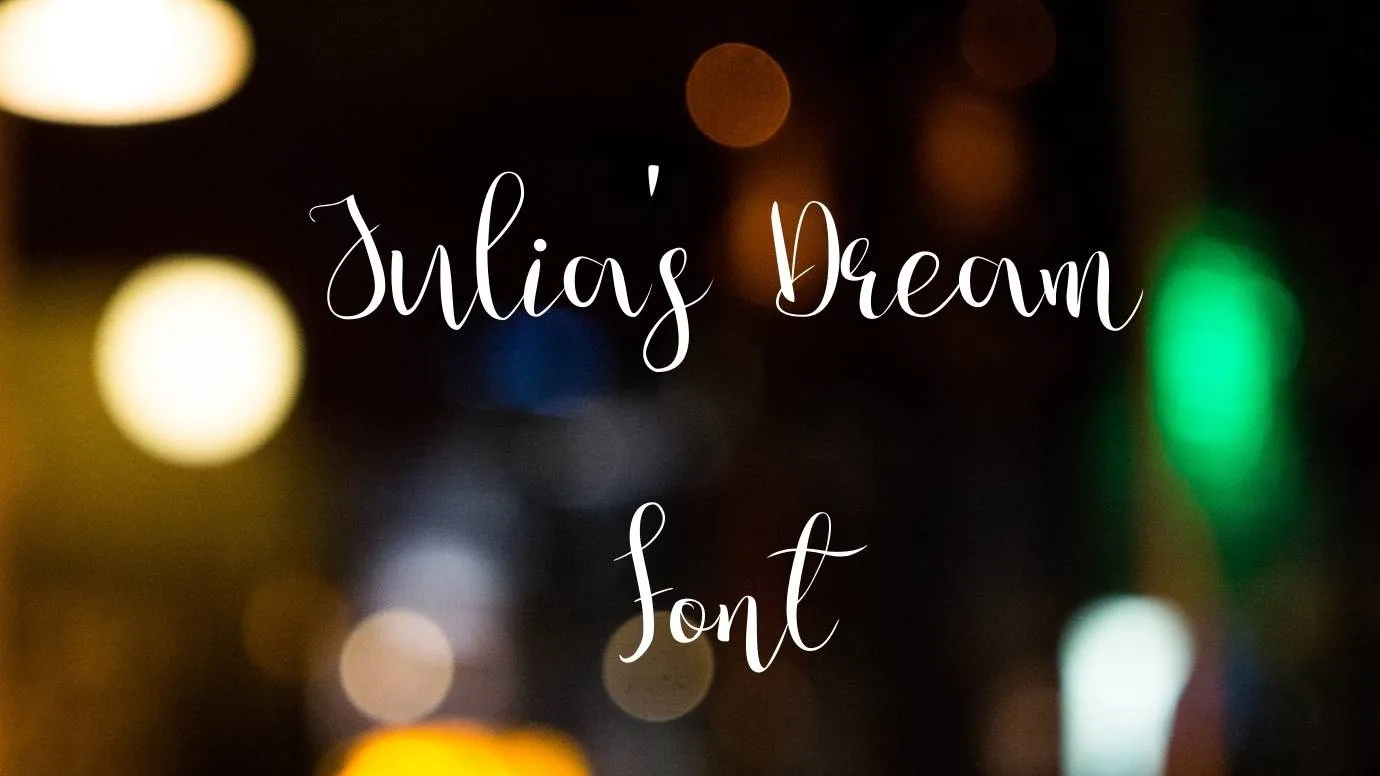
Julia’s Dream Font is an handwritten typeface known as Julia’s Dream Font. It belongs to the script font family but it can be used for calligraphy and scripts designs due to its attractive look. This typeface was released by a famous designer named Dmitriy Chirkov.
It is also useful for many authorized enterprises and develops beautiful designs. Julia’s Dream Font is also great for forming similar designs of it with the help of another font like Southern Font.
Julia's Dream Font